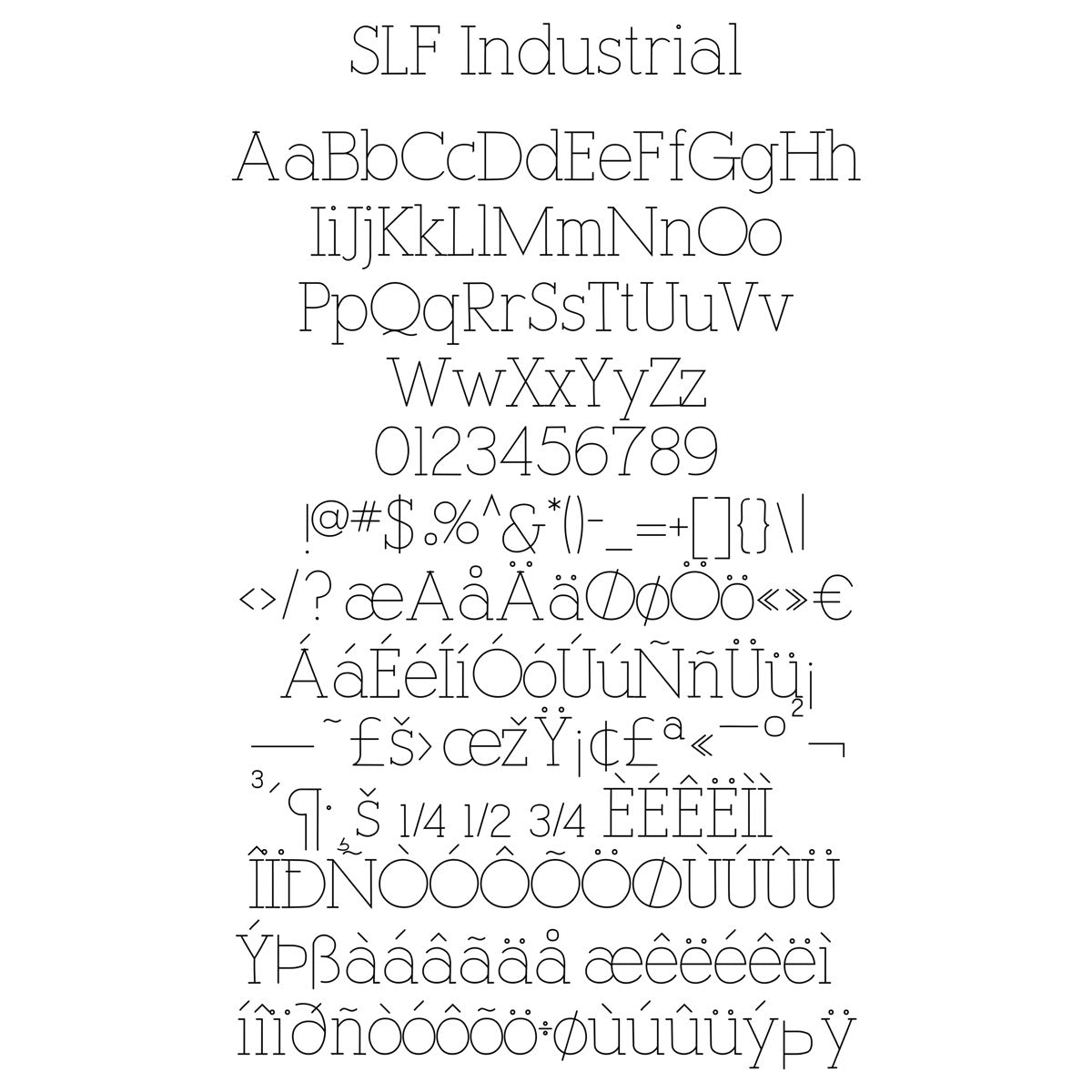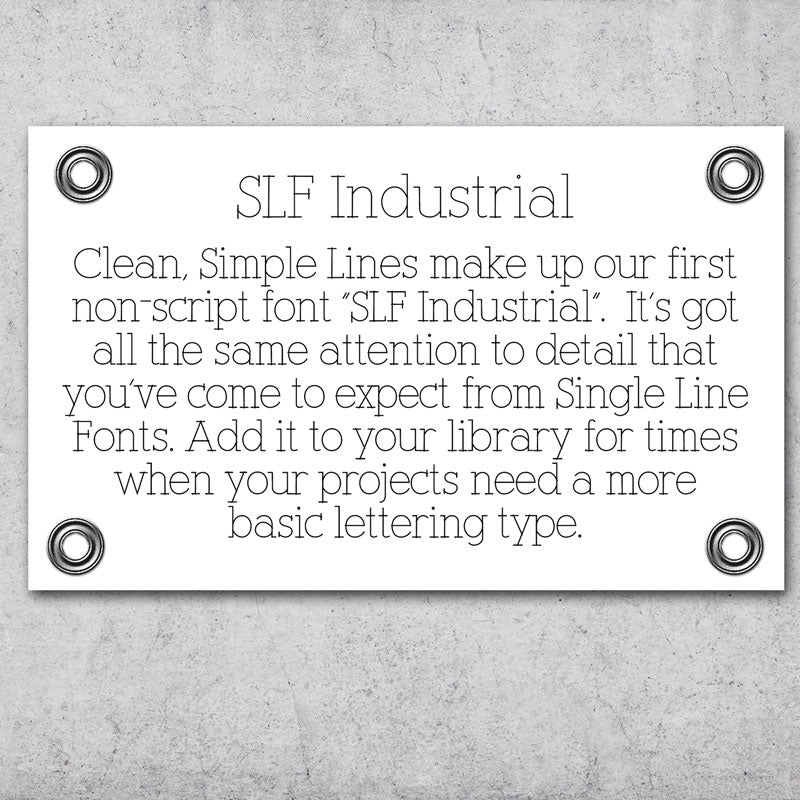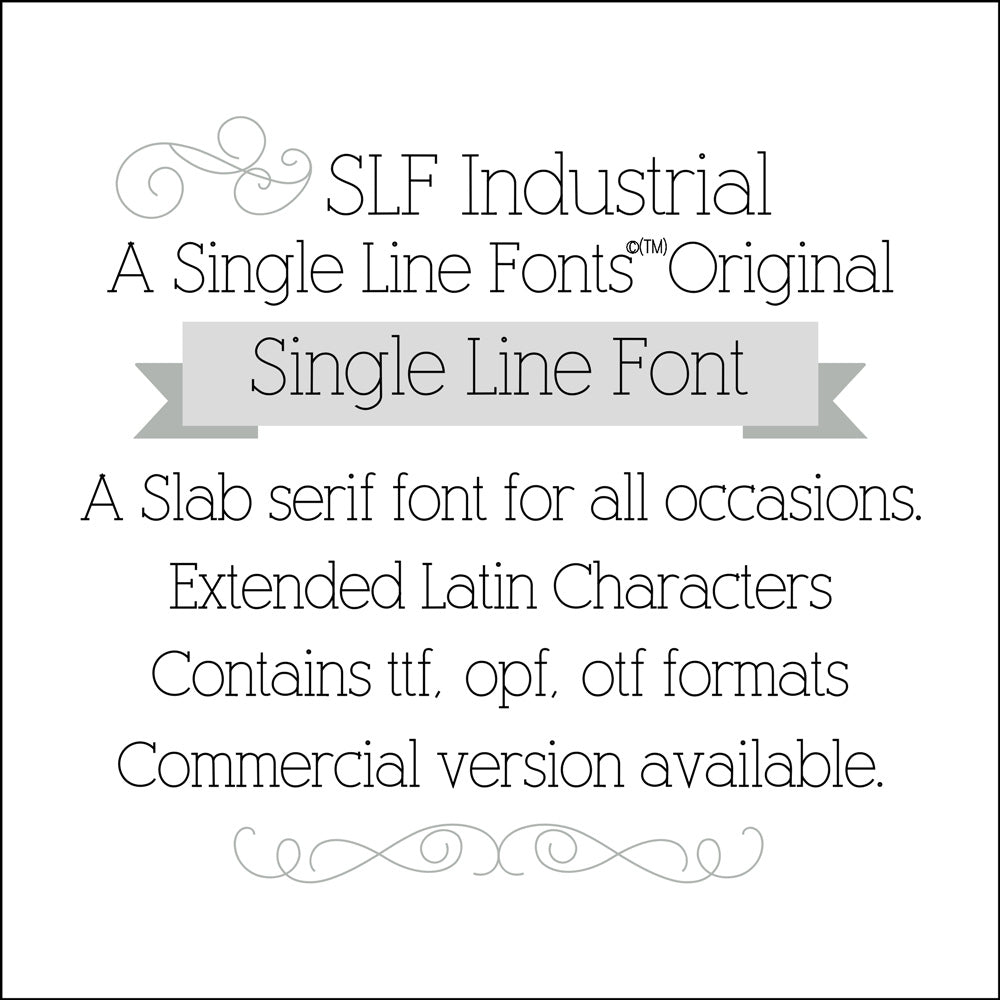
slf industrial single line font
Single Line Font "SLF Industrial"
Classic, Clean Slab Font
Made by special request from an engraver, SLF Industrial is the go-to for when you need clean, simple lines to use on your cards, pen and quill tool projects, and engraved items.